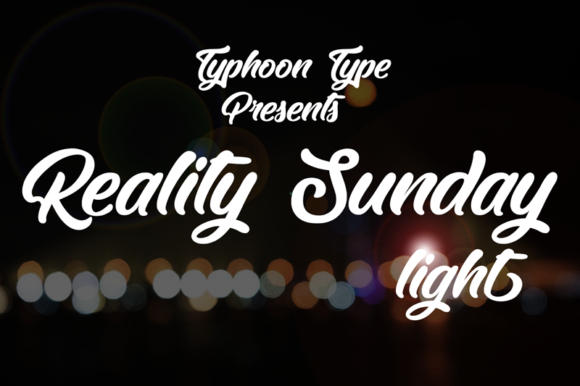
Reality Sunday Light Font
About Reality Sunday Light Font
Reality Sunday Light is a gorgeous script font, ideal for use in headlines and titles. This font has an approachable vibe, and can give a charming appeal to your typographic projects.